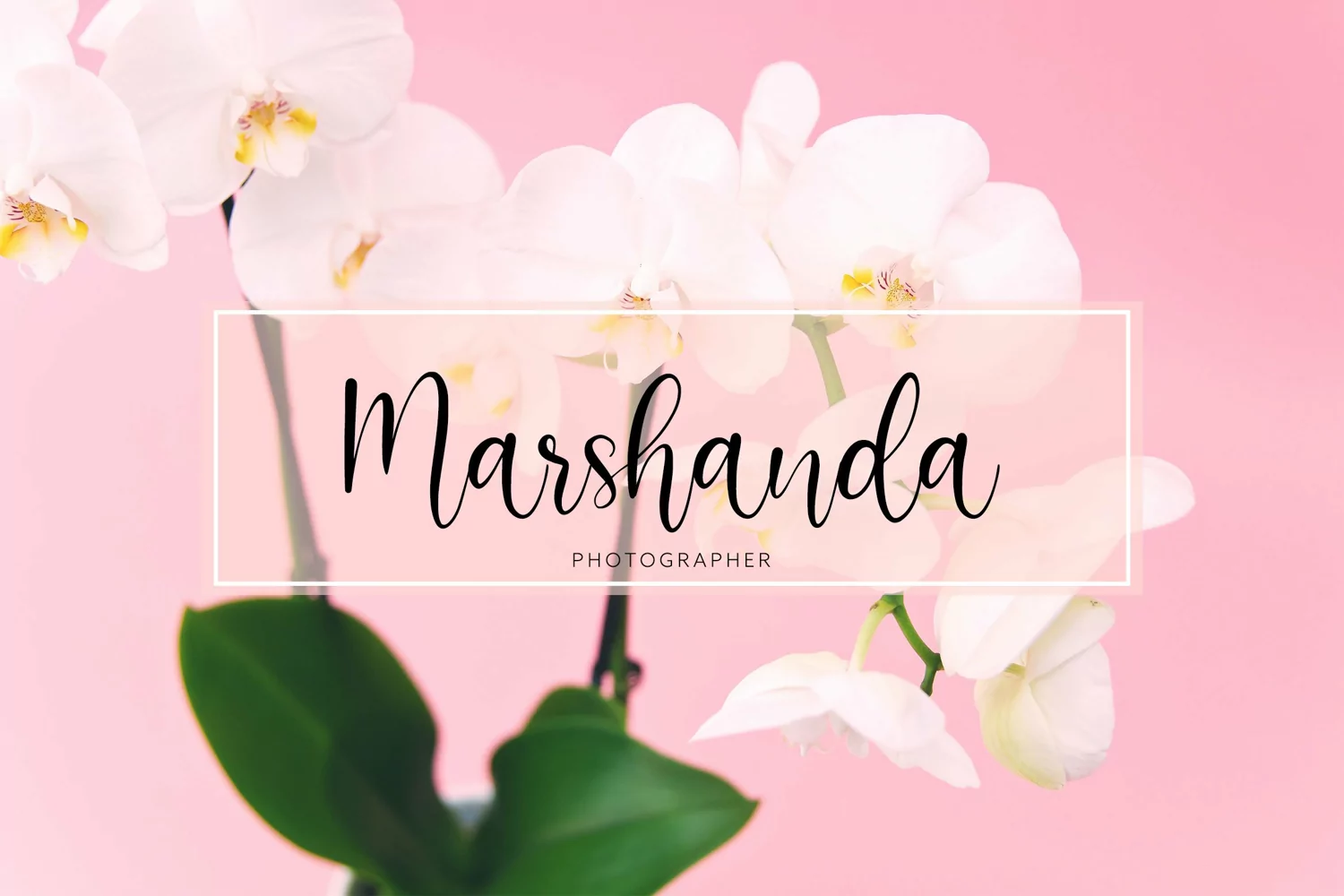
Beauty Mothers Script
Beauty Mothers Script includes full set of lovely uppercase and lowercase letters, multilingual symbols, numerals, punctuation and ending lowercase swashes. is perfect fo you up coming projects. such as modern invitation design, branding stationery design, wedding, birthday, etc and any projects.